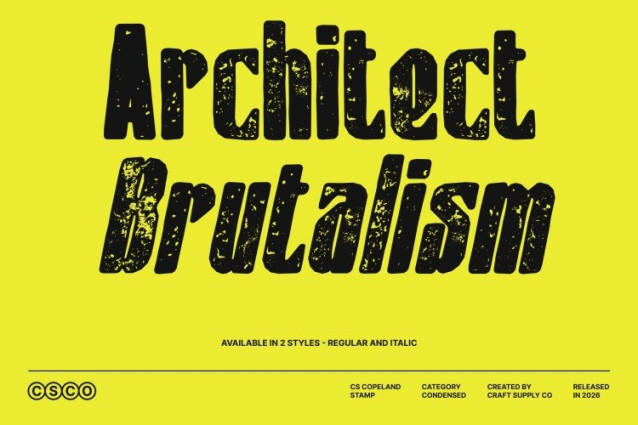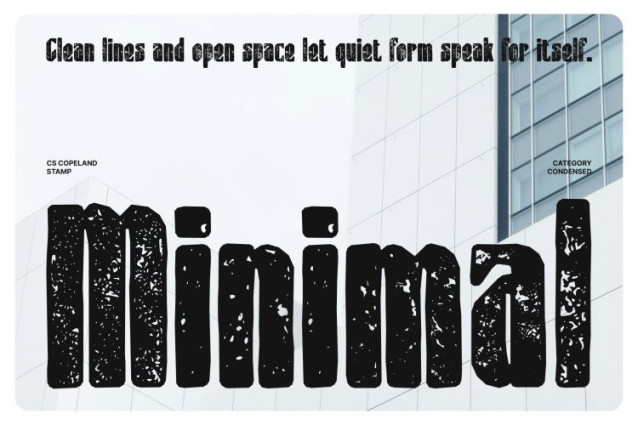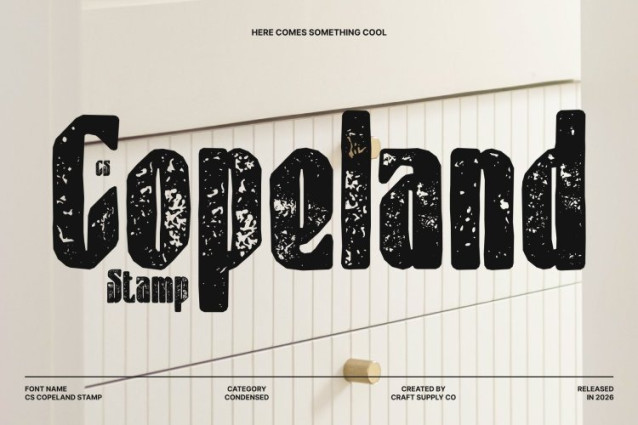
CS Copeland Stamp Font
CS Copeland Stamp Font – This is a modern sans serif font featuring a bold, condensed structure that delivers a confident and impactful visual identity. Its slim letterforms and clean lines create a sharp, contemporary look, making it ideal for designs that require both efficiency and style. Enhanced with a stamp effect, the font gains a subtle textured finish that adds depth and a handcrafted, vintage-inspired character.
Space-Efficient Design with Textured Detail
The narrow proportions of this font allow for optimal use of limited space without sacrificing readability. The stamp effect introduces slight ink variations and gently worn edges, bringing an organic, tactile quality that softens its modern precision while enhancing its visual appeal.
Stylish and Confident Visual Tone
Balancing boldness with clarity, this font communicates modern professionalism with a stylish edge. Its structured form ensures strong legibility, while the textured finish adds personality, making it feel both refined and approachable.
Perfect for Branding, Editorials, and Digital Media
Ideal for branding, posters, social media graphics, packaging, editorial layouts, and UI/UX design, this font adapts seamlessly across creative applications. Its fusion of condensed bold form and vintage stamp texture creates a distinctive typographic voice modern, efficient, and visually compelling.